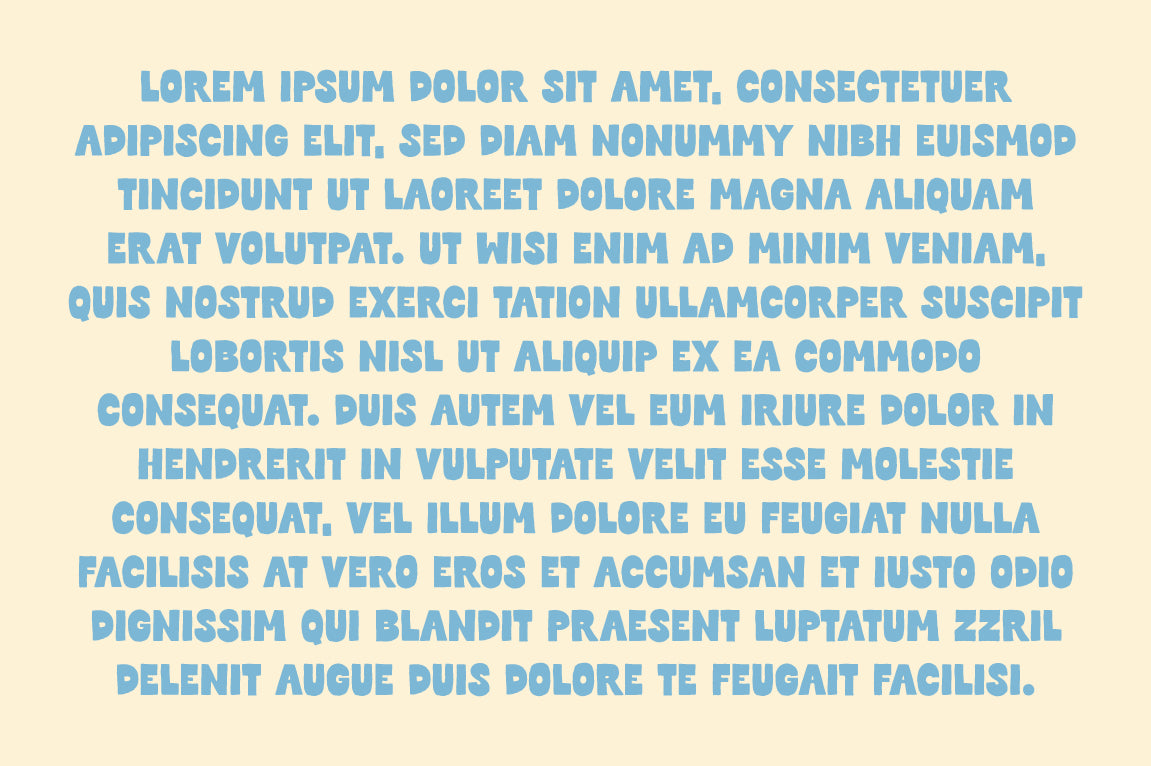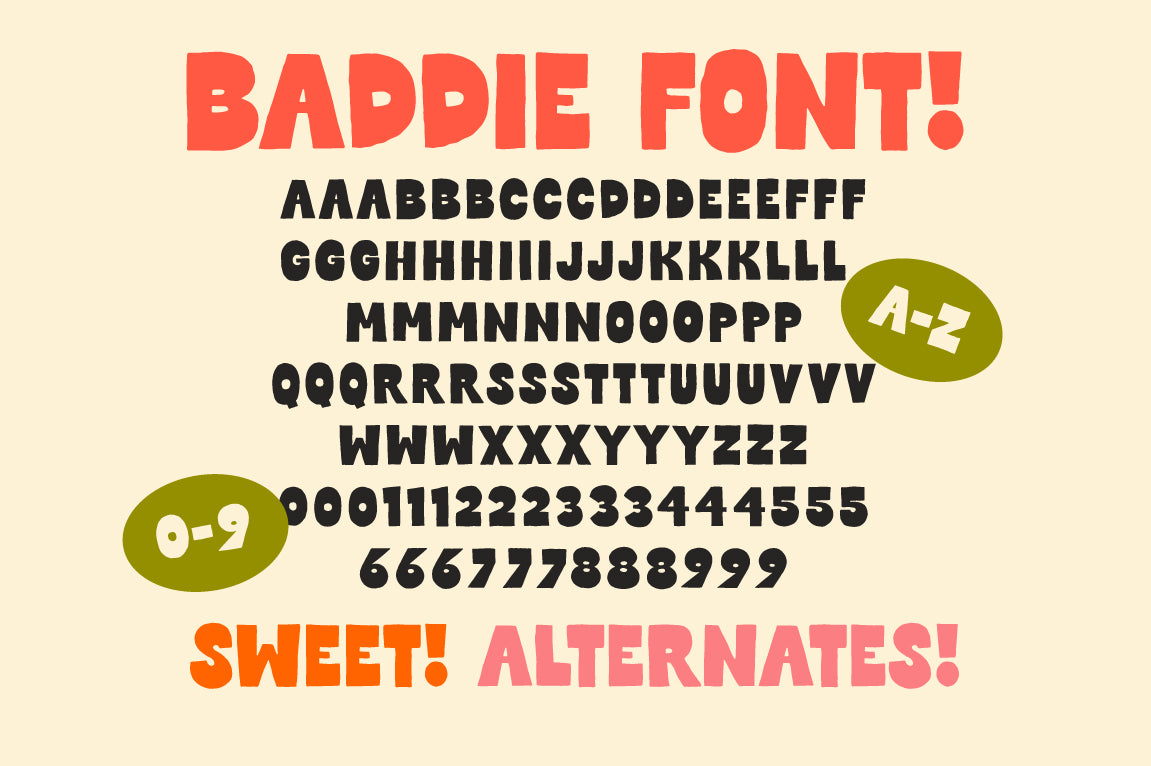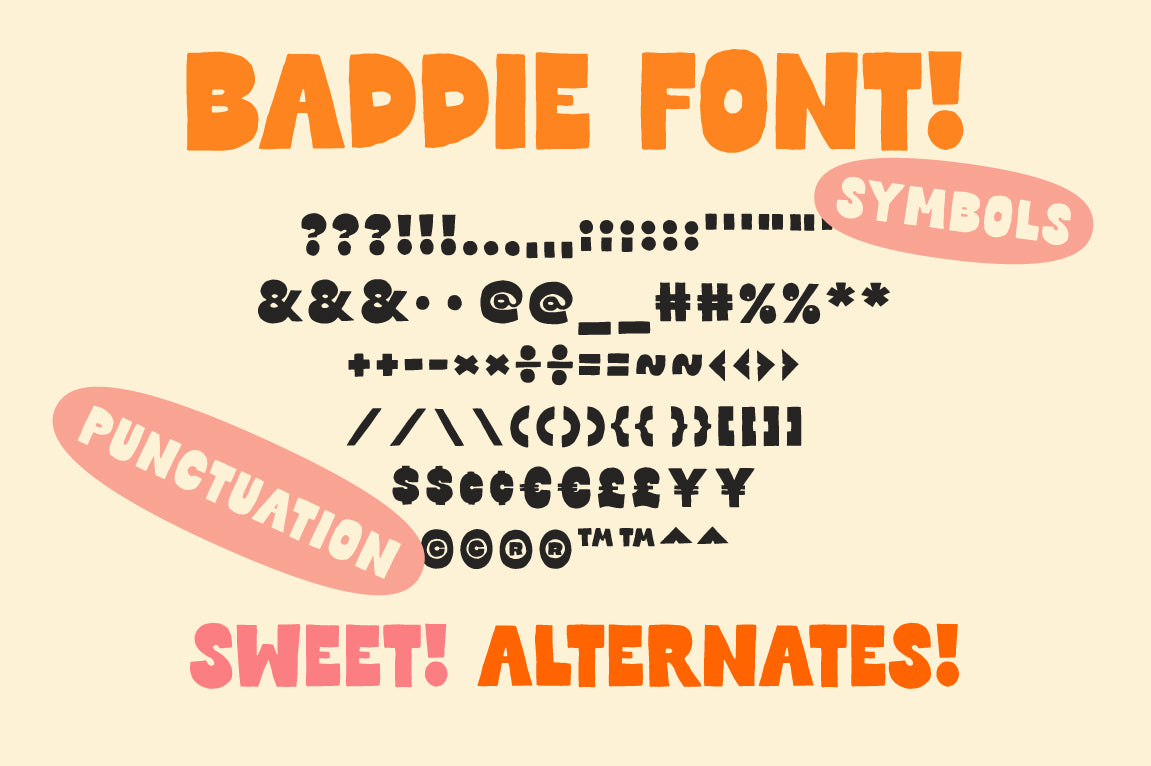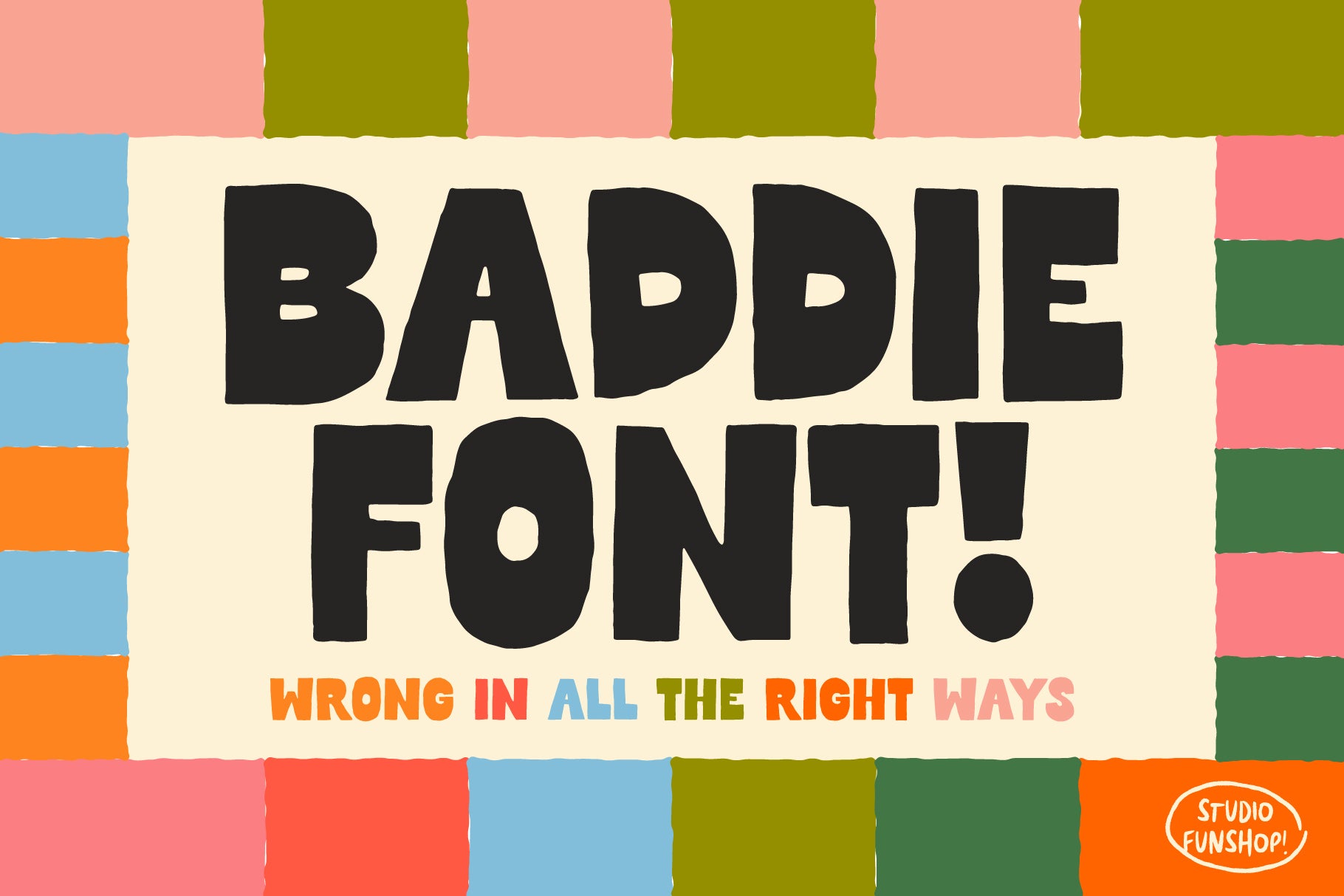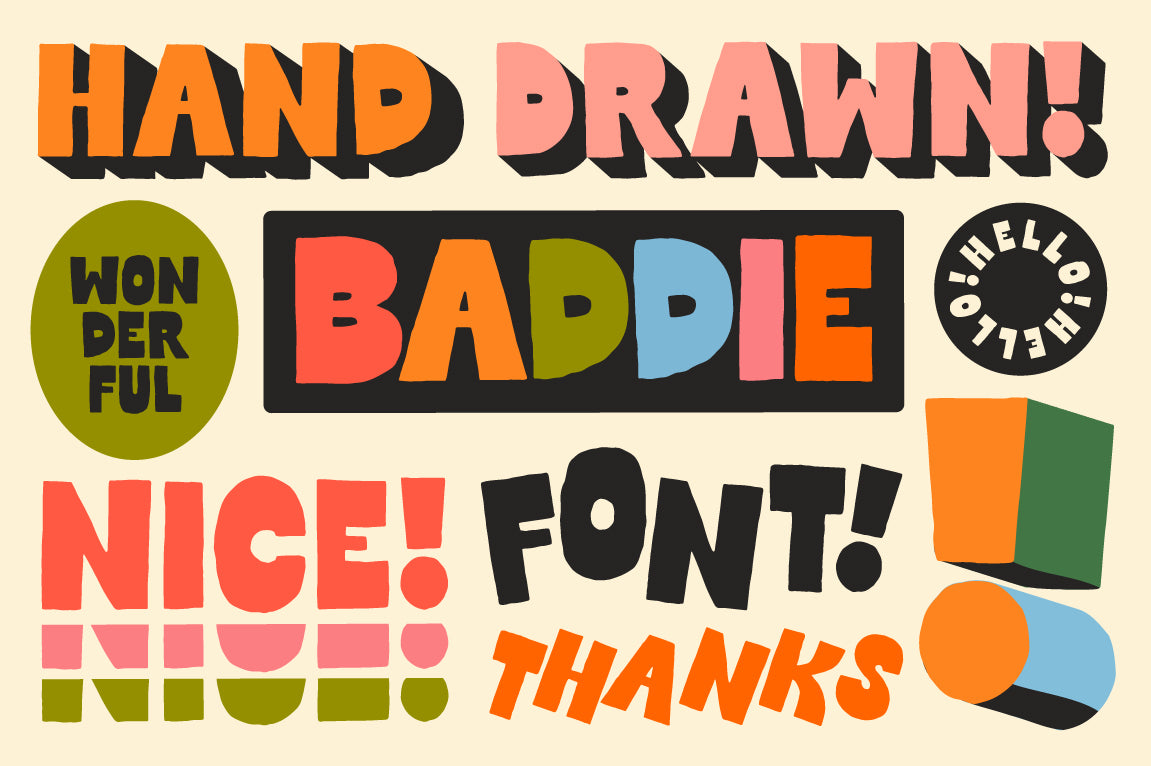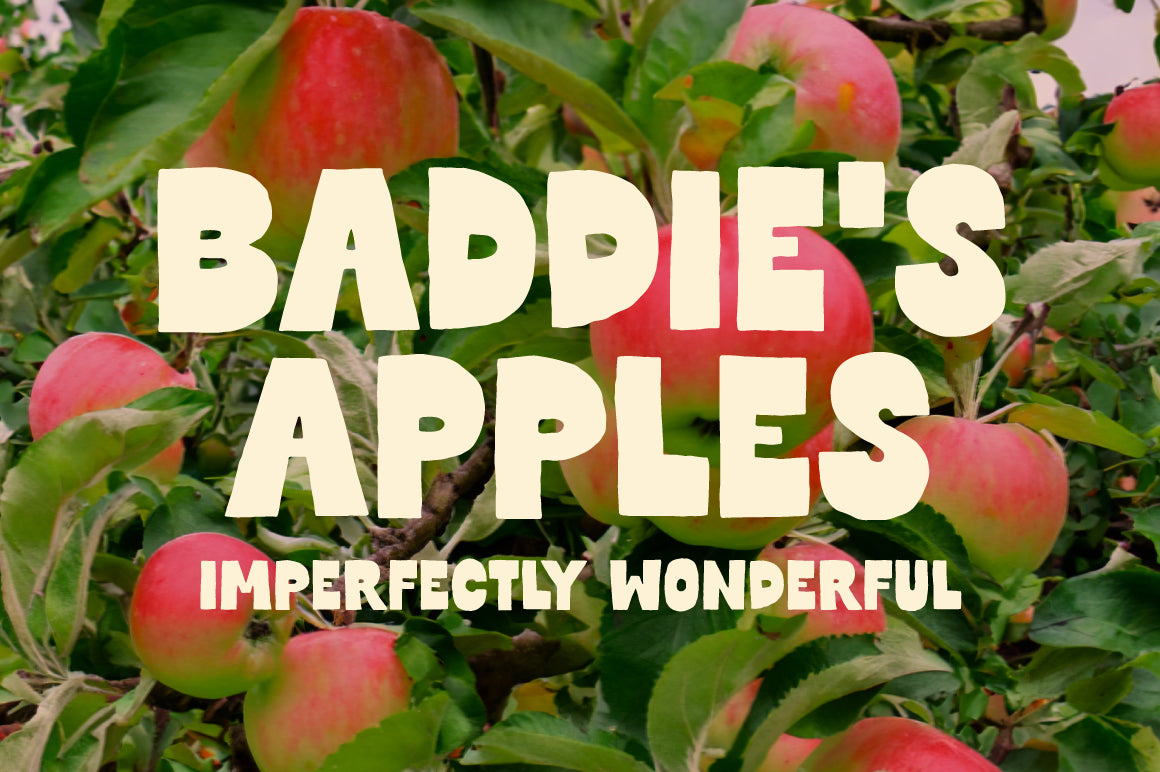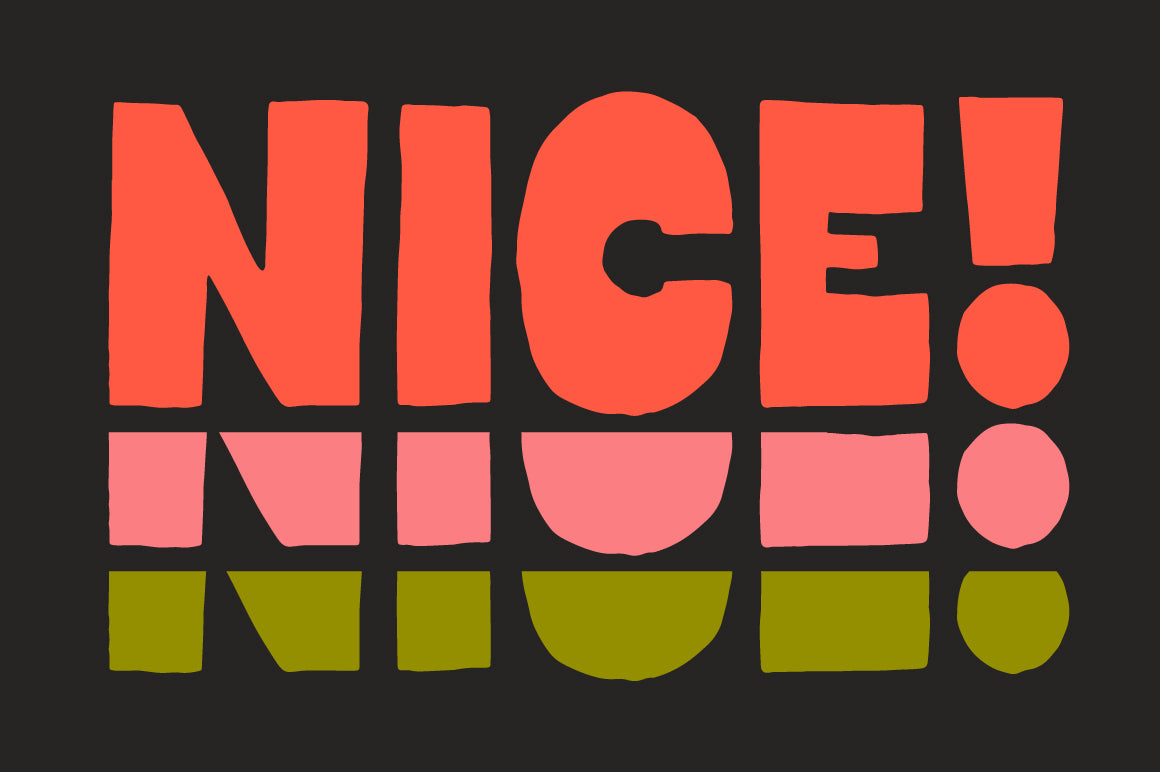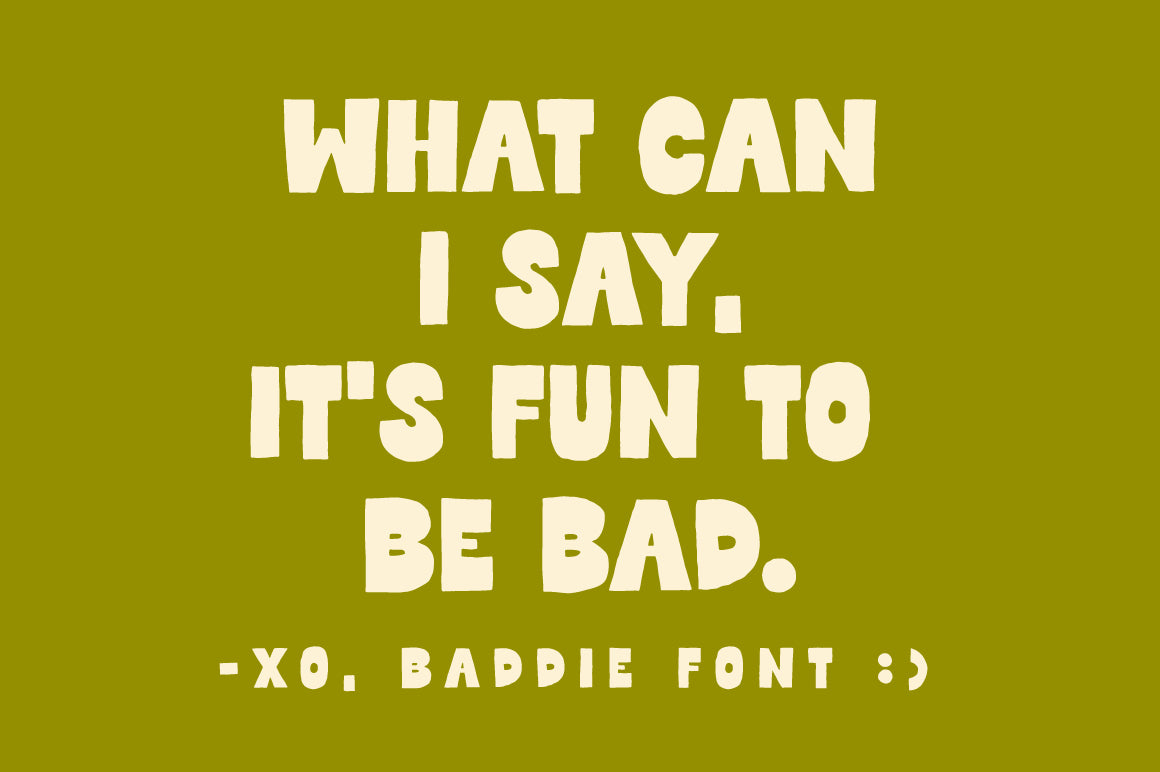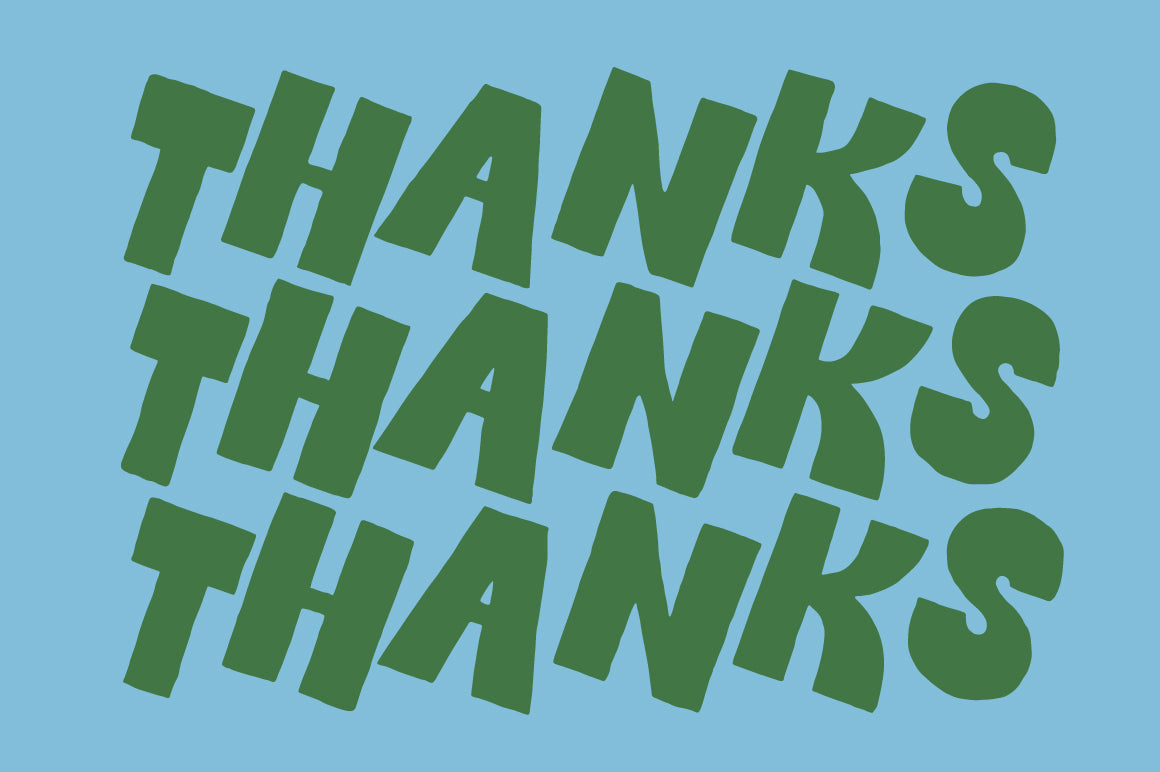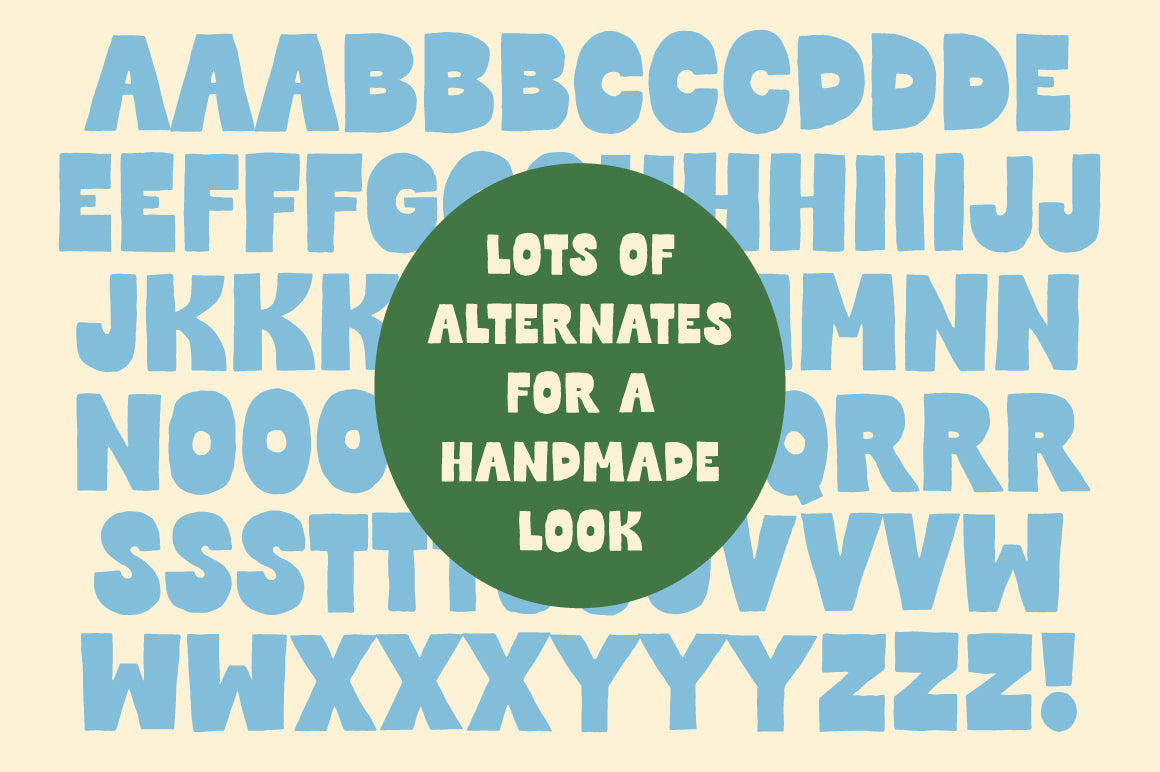
Baddie - Reverse Contrast Handmade Font
A retro-inspired, hand-lettered, reverse contrast font! Made for rule breakers!
I hand drew each character, including alternates, to create a font that has that wonderful handmade goodness!
Looks great for logos, display, quotes, art, and a handmade touch.
What's in the font? Uppercase Letters A-Z! Numbers! Symbols! Punctuation! Alternates! (see slides!)